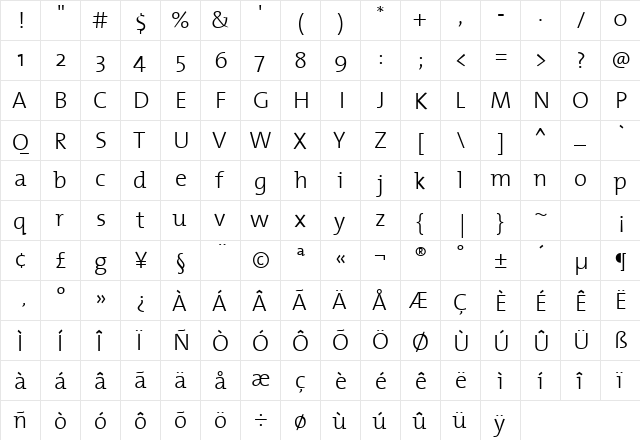
TheMixLight-Plain Regular
Design Context for TheMixLight-Plain Typeface
TheMixLight-Plain is a composed and adaptable typeface that performs quietly and consistently across a wide range of design contexts. The delicate stroke weight brings airiness and refinement to layouts.